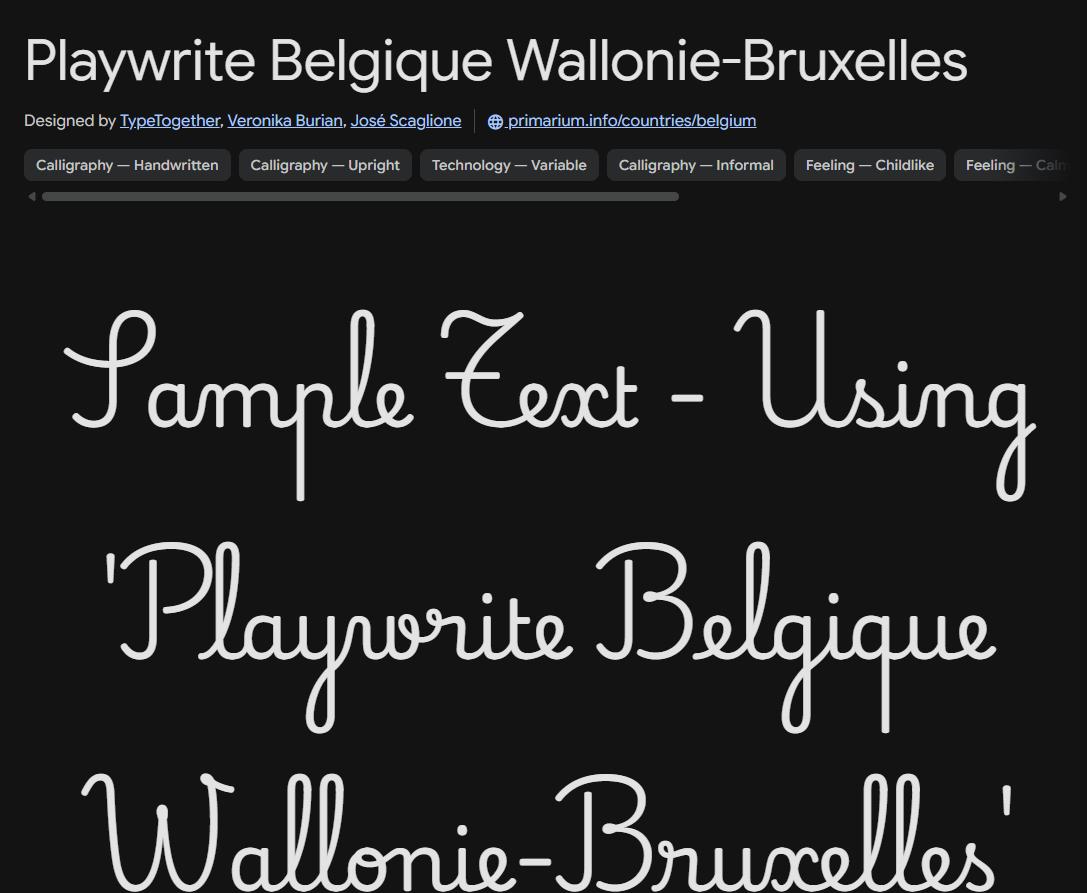
The Playwrite Belgique Wallonie-Bruxelles typeface, meticulously engineered by TypeTogether's Veronika Burian and José Scaglione, represents a sophisticated intersection of pedagogical tradition and modern variable font technology. Designed as a single-axis variable font-facilitating fluid transitions across its weight range-this family digitizes the specific ductus and cursive letterforms standardized for the Wallonia-Brussels regional curriculum. By integrating localized glyph variations and precise interpolation, the typeface serves as a critical bridge between analog handwriting instruction and digital accessibility, providing a semantically rich typographic solution that honors regional educational nuances while leveraging the efficiency of modern CSS-driven font-variation settings for scalable, responsive e-learning environments.
The Playwrite Belgique Wallonie-Bruxelles typeface serves as a digital archive of regional pedagogical identity, utilizing state-of-the-art variable font technology to bridge the gap between traditional handwriting and modern screen-based environments. This upright, informal calligraphic script meticulously replicates the Belgian schoolhouse aesthetic, manifesting a unique blend of childlike wonder and calm, vintage sophistication. Its handwritten morphology exhibits a rugged, organic stroke quality that feels both playful and happy, deviating from rigid mechanical layouts to embrace the fluid nuances of human-centric design. By prioritizing localized cursive standards within a scalable digital framework, the font family provides a semantically rich typographic solution that honors the tactile heritage of the Wallonia-Brussels region while offering a highly legible, upright visual rhythm that is both approachable and historically resonant.
Playwrite Belgique Wallonie-Bruxelles, engineered by TypeTogether's Veronika Burian and José Scaglione, is inherently ill-suited for high-stakes corporate legal documentation or mission-critical technical interfaces where rapid semantic decoding is paramount. Because its glyph construction adheres strictly to the pedagogical school-hand models of the Belgian Federation, the continuous cursive joins and fluid stroke modulation create a visual rhythm optimized for primary education rather than high-density information architecture. In environments requiring maximum legibility under stress-such as medical labeling, pharmaceutical instructions, or aerospace telemetry-the variable axis and complex contextual alternates of this script could introduce significant cognitive friction, as the organic, linked-path variability of a school-hand model lacks the rigid terminal distinctness and uniform x-height required for instantaneous, error-free character recognition in high-pressure industrial applications.
This font is ideal for educational materials, personalized invitations, and local heritage projects centered in the Belgian region. Its primary utility lies in pedagogical software development, leveraging the specific cursive models mandated by the Federation Wallonia-Brussels to ensure handwriting consistency in digital learning environments.
Clean, geometric sans-serifs like Montserrat or Roboto provide a balanced contrast against the fluid, handwritten lines of the script. By maintaining a high x-height in the secondary typeface, designers can compensate for the variable ascender heights inherent in the font's OpenType glyph substitutions.
While highly expressive, the font is generally not recommended for extensive body copy as the connecting strokes can reduce reading speed. The legibility of long-form text is hindered by the rhythmic complexity of its stroke-joins, which increases the cognitive load compared to standard humanist or grotesque typefaces.
The font maintains exceptional clarity in high-resolution print, preserving the delicate nuances of its educational cursive structure. On low-DPI digital displays, the intricate vector paths of the connecting ligatures may suffer from anti-aliasing artifacts, necessitating the use of font hinting or high-pixel-density screens for optimal rendering.
This specific script family typically focuses on a singular weight that mimics standard classroom writing instruments. Because it is part of a variable font project, users can often manipulate the weight or slant axes to achieve a custom CSS font-weight that adheres to specific accessibility standards for visual contrast.
It serves as a powerful tool for brands seeking a local, authentic, or educational identity within the Francophone Belgian market. The unique vector-based geometry of its character set allows for seamless scaling, making it a robust choice for responsive logotypes that require cultural specificity and high-resolution output.
To ensure that the connections between letters remain visible and clean, a minimum size of 12 points is generally advised for physical media. Technical analysis of the glyph apertures suggests that dropping below 10 points leads to ink gain issues where the delicate loops of characters like 'e' and 'a' become illegible during high-speed offset printing.
Yes, the font is engineered with sophisticated OpenType features that automatically adjust letter shapes based on their neighboring characters. These contextual alternate (calt) lookup tables are essential for simulating the dynamic entry and exit strokes required by the specific Wallonie-Bruxelles cursive model.
The upright or slightly slanted nature of the characters creates a sense of order and rhythmic stability within a design layout. From a typographic perspective, the lack of an aggressive italic angle minimizes the horizontal expansion of text blocks, allowing for tighter kerning pairs and more efficient white space management.
It is highly effective for personalized correspondence or boutique corporate identities that want to project a human-centric, approachable image. In a corporate context, the typeface functions as a distinctive signature element, though it requires pairing with a high-readability serif to meet WCAG 2.1 contrast and accessibility guidelines for official documentation.